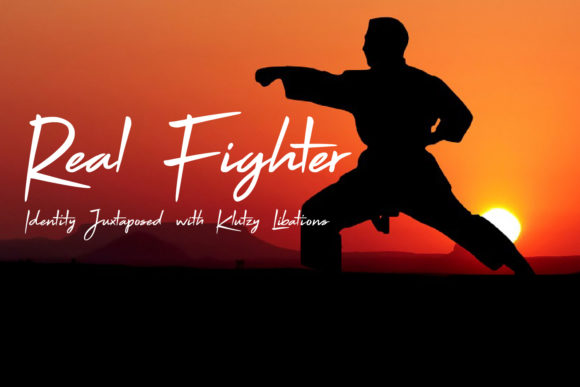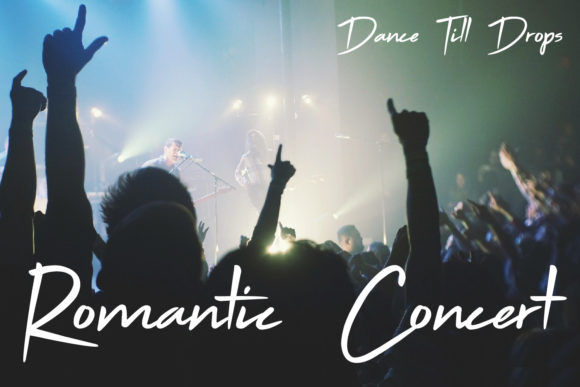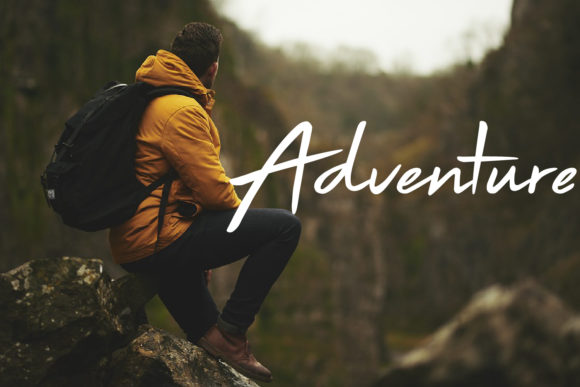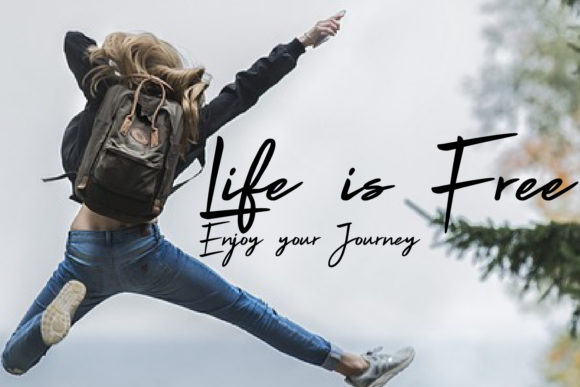
Xinden Font
About Xinden Font
Xinden is a modern and fashionable script font with a cool vibe. Use it to turn any design project into a true standout!